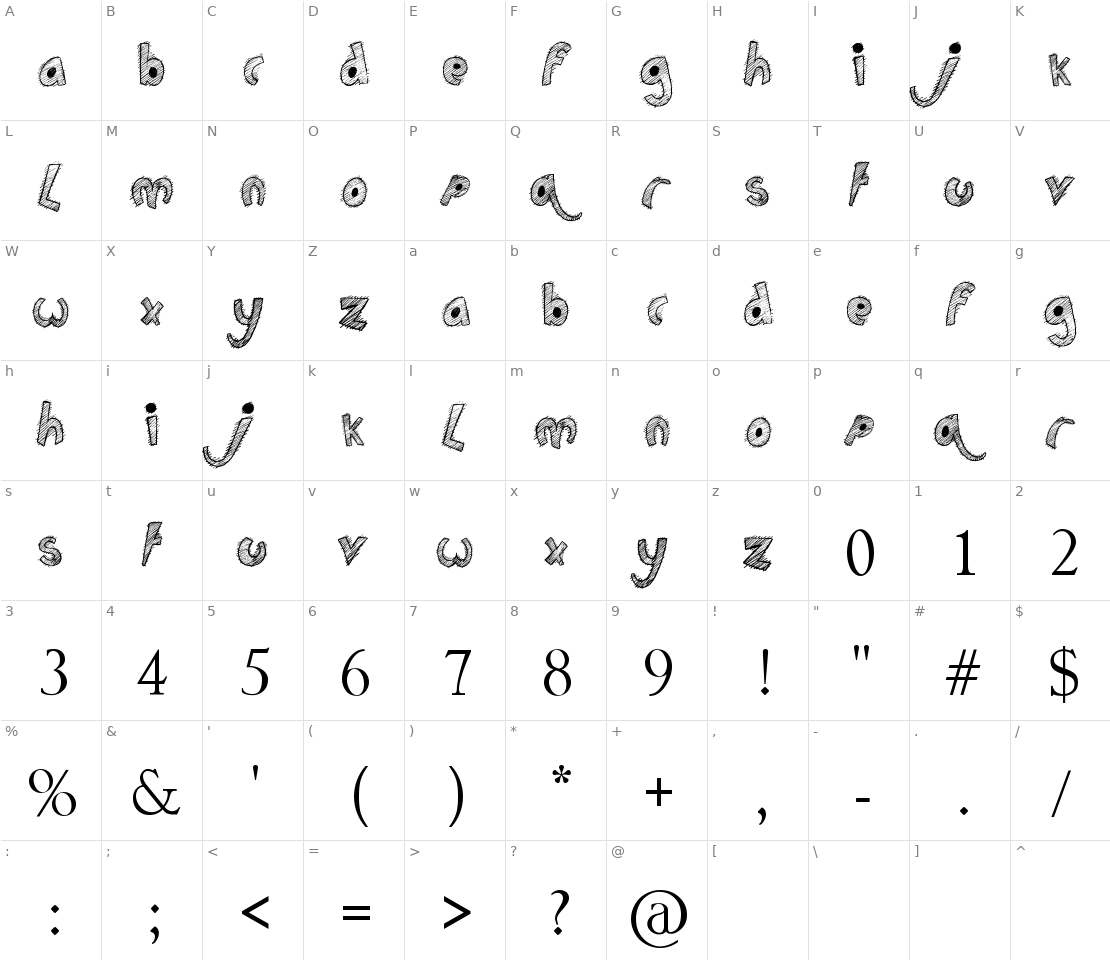
Childs Play
Childs Play is a loose, sketchy handwritten face by Jonathan S. Harris that genuinely captures the uneven pressure and wobbly spacing of a kid writing with a pencil. The letterforms feel spontaneous and unforced, with just enough inconsistency to read as authentic rather than designed. A natural pick for children's books, playful packaging, and anything that needs to feel like it was scrawled by someone still learning to stay inside the lines.